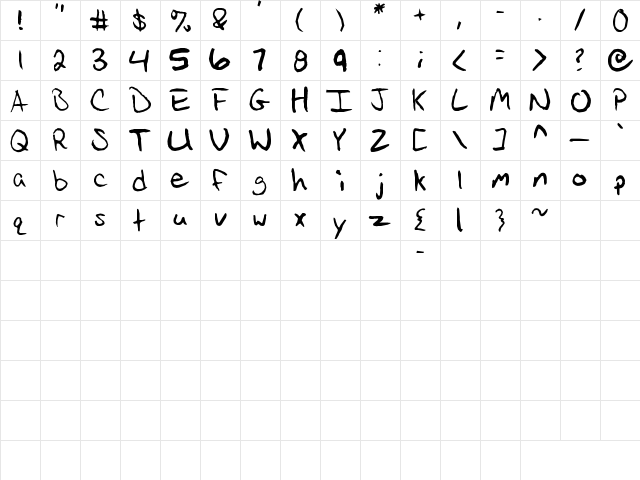
Jason's Handwriting Regular
Design Context for Jason's Handwriting Typeface
Jason's Handwriting flows with the natural rhythm of handwritten lettering, making it ideal for designs that call for warmth and personal expression.
Font Pairing: Combine Jason's Handwriting with a simple geometric sans for maximum contrast — the tension between flowing curves and clean structure is a classic typographic pairing.
Pro Tip: Pair Jason's Handwriting with a clean sans-serif for supporting text. The contrast between fluid script and geometric structure creates an elegant typographic hierarchy.